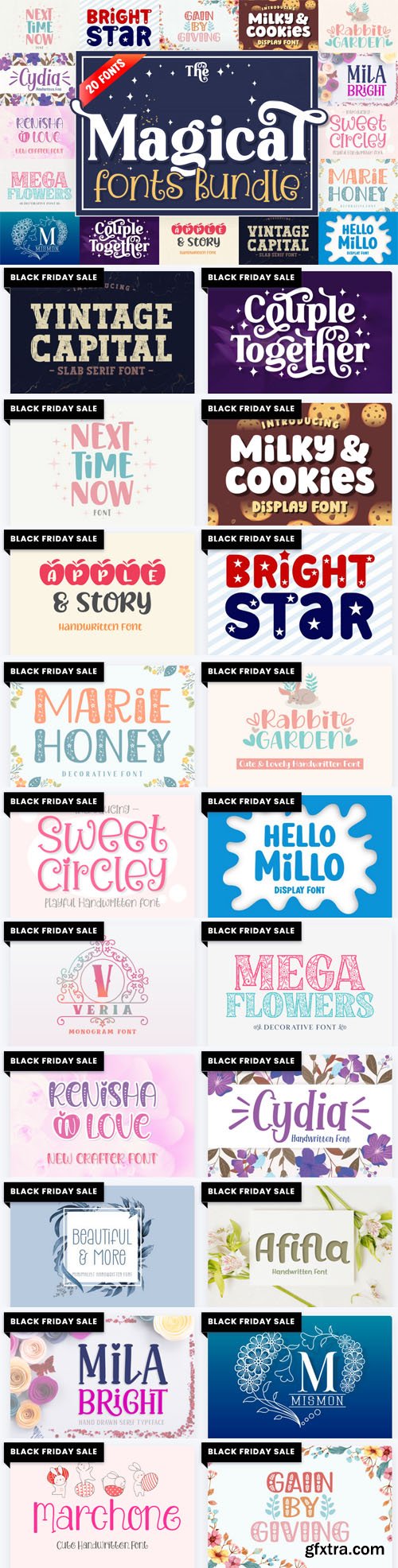
CF - The Magical Fonts Bundle - 20 Premium Fonts Worth
This font collection includes beautiful decorative fonts perfect for your upcoming crafting projects!